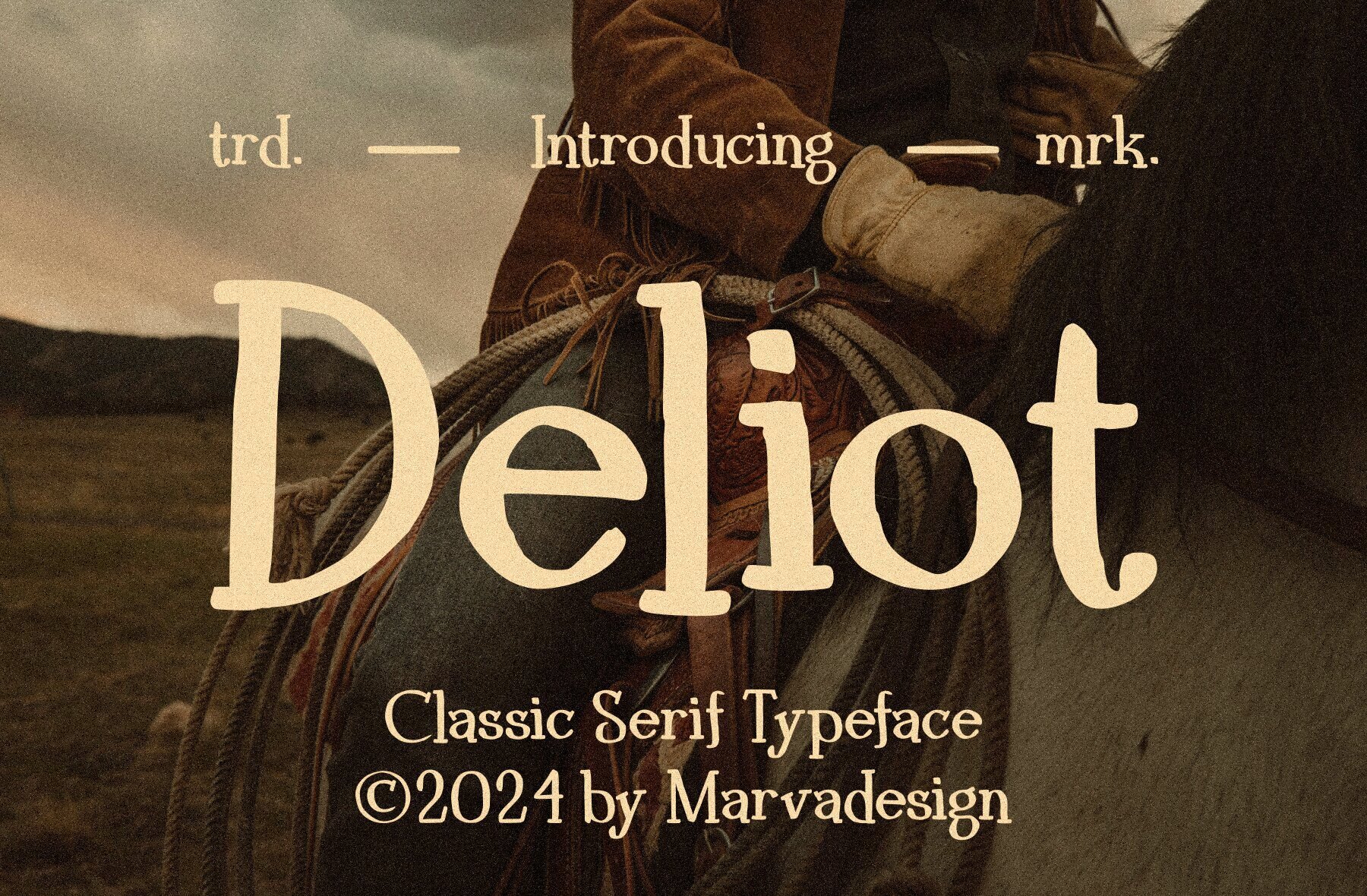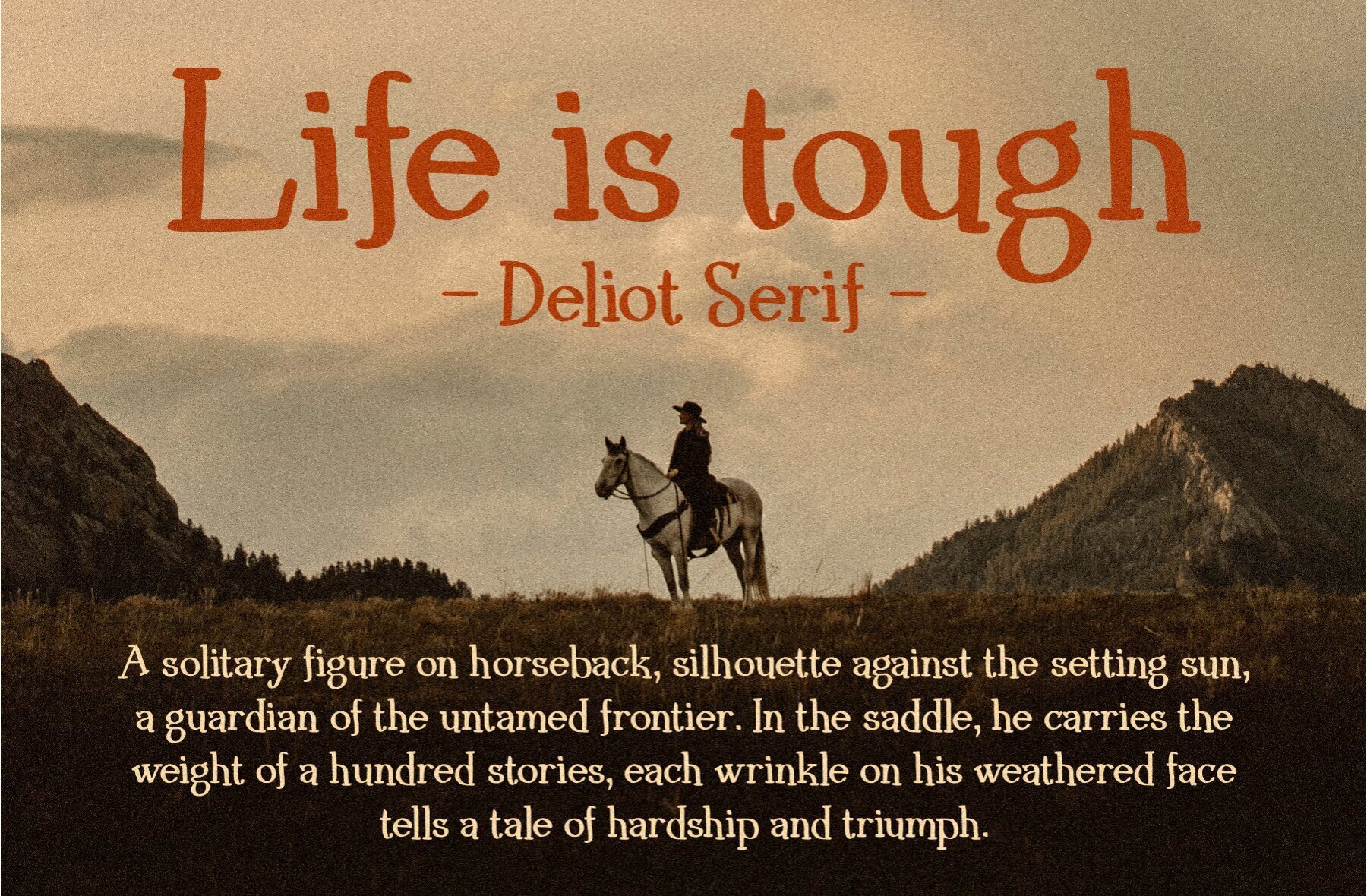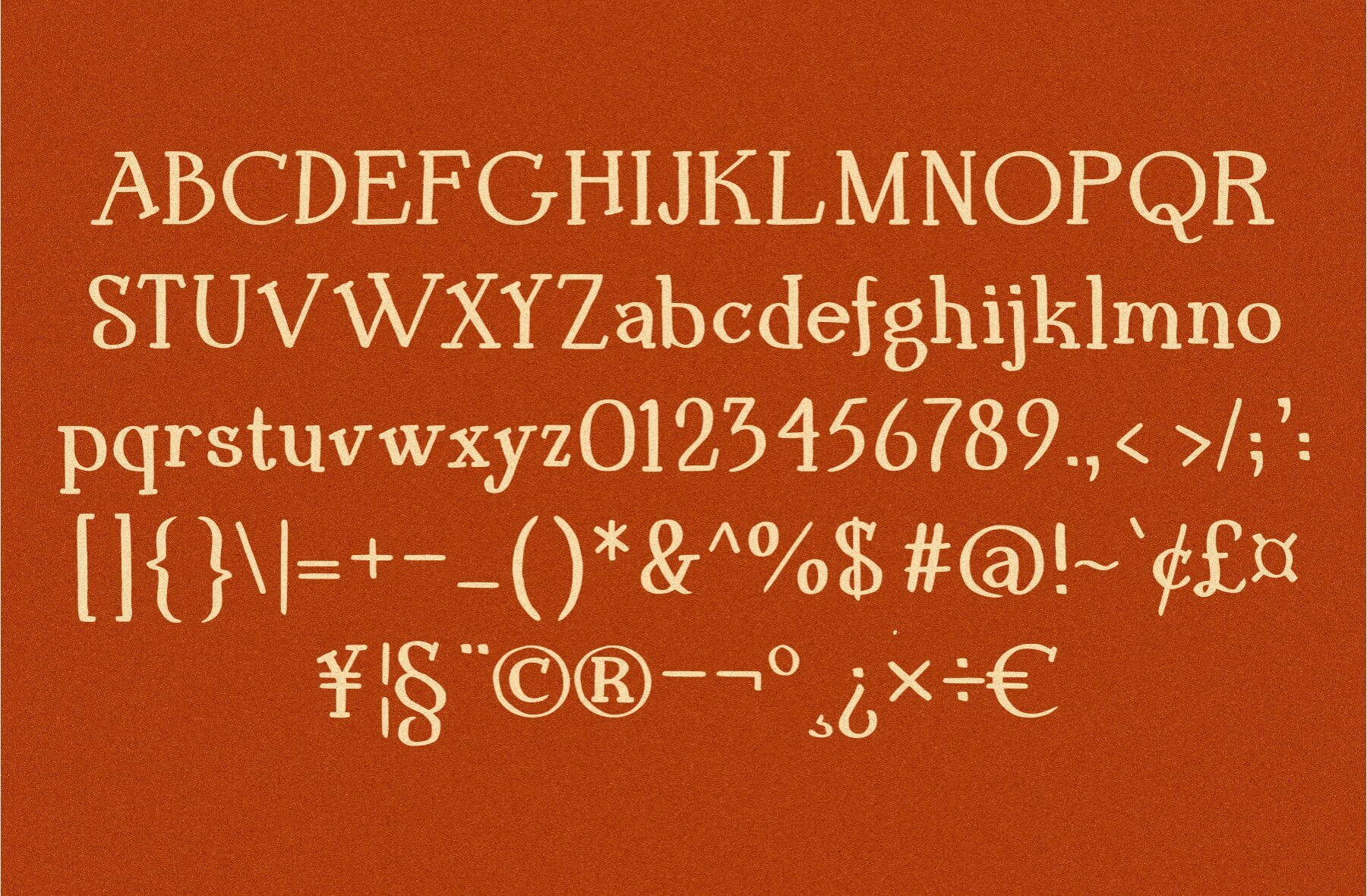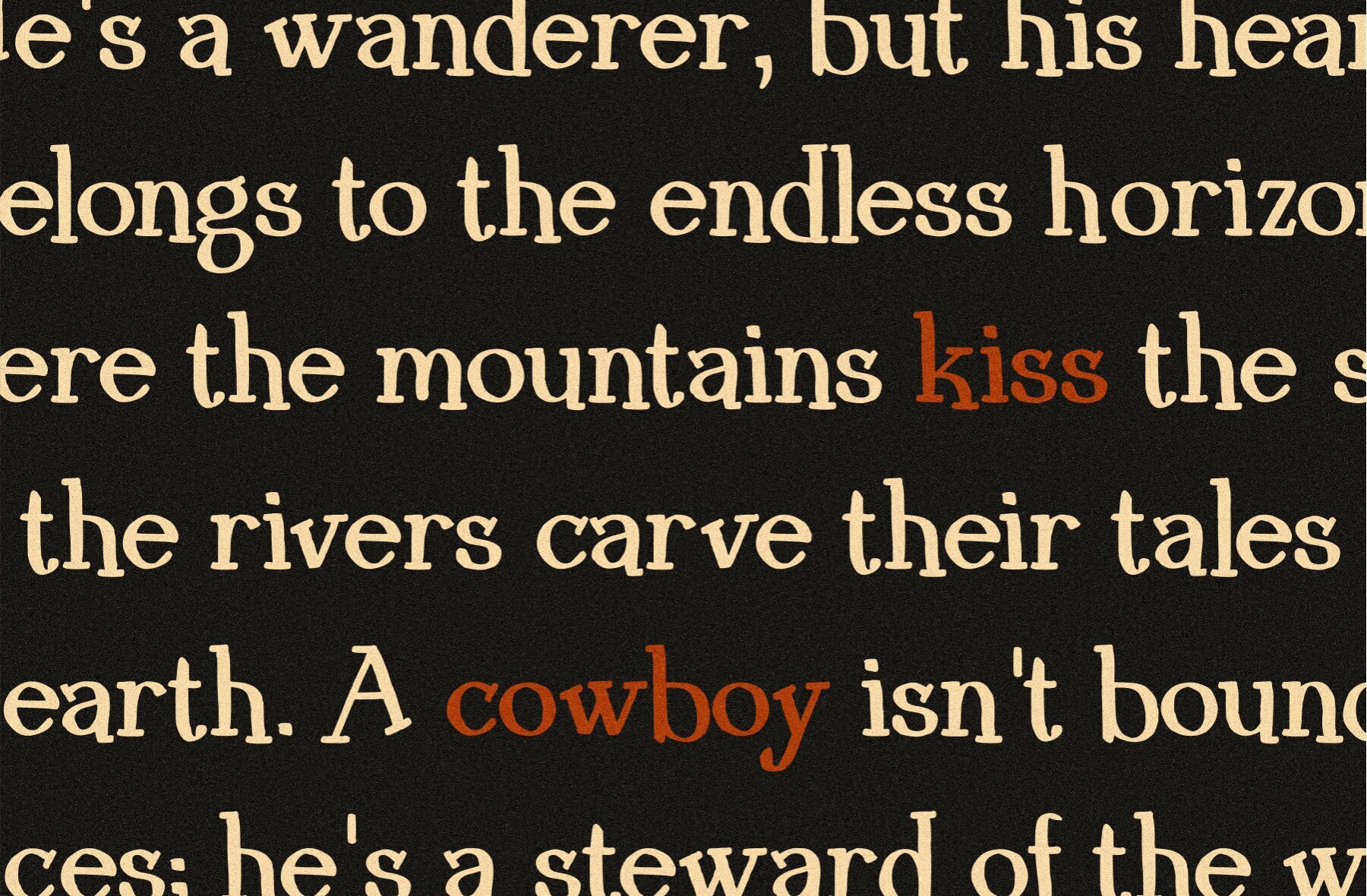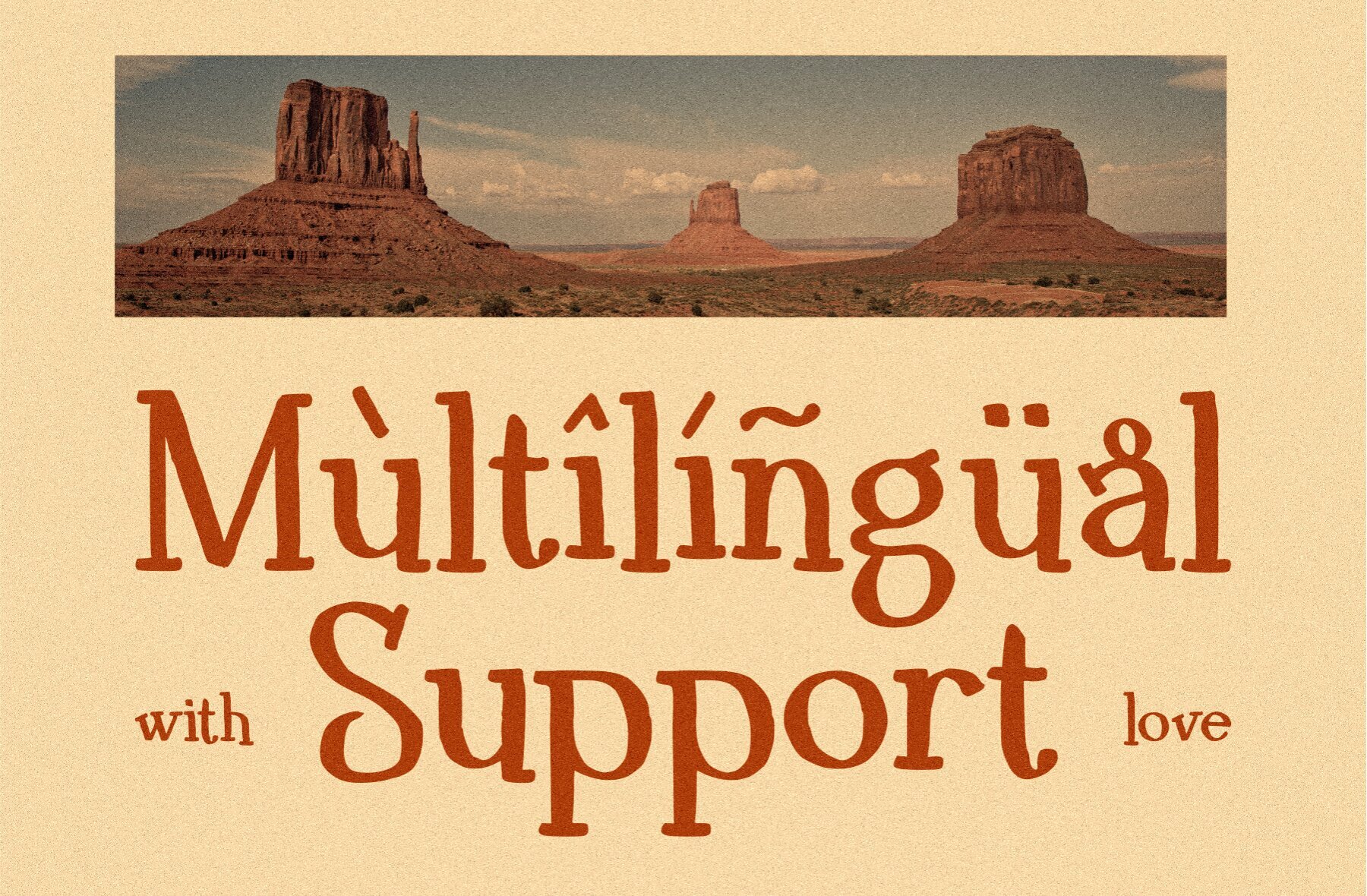
Deliot Font
Deliot Regular
Deliot is a classic serif font, perfect for a variety of branding projects including logos, template designs, and more. Its authentic display style excels in a wide range of contexts.Deliot: A Classic Serif Font for Authentic Branding